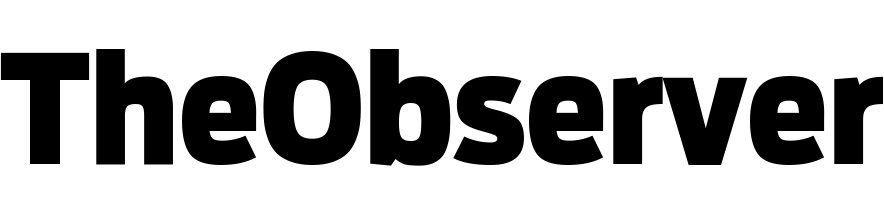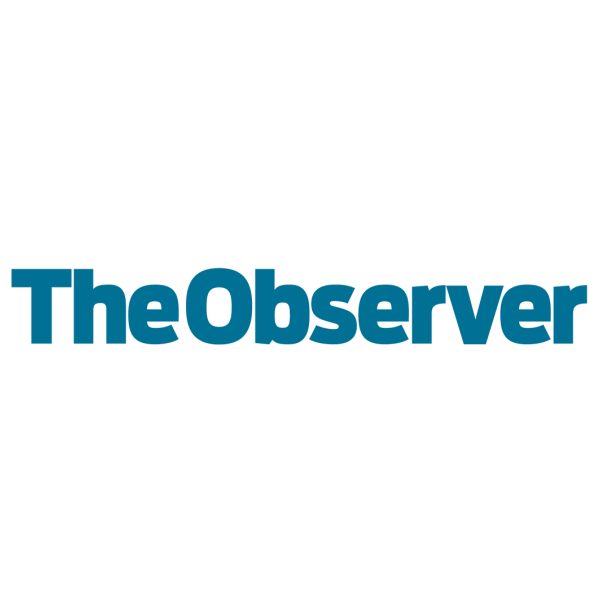
The Observer Font
Fonts in UseThe Observer is a British Sunday newspaper, known for its investigative journalism and liberal political stance. It was first published in 1791 and covers a wide range of topics including news, politics, culture, and sports.
Antenna Condensed Black is the typeface used in the newspaper's nameplate. It is a sans-serif font family with curved endings created by Cyrus Highsmith and published by Font Bureau in 2007.